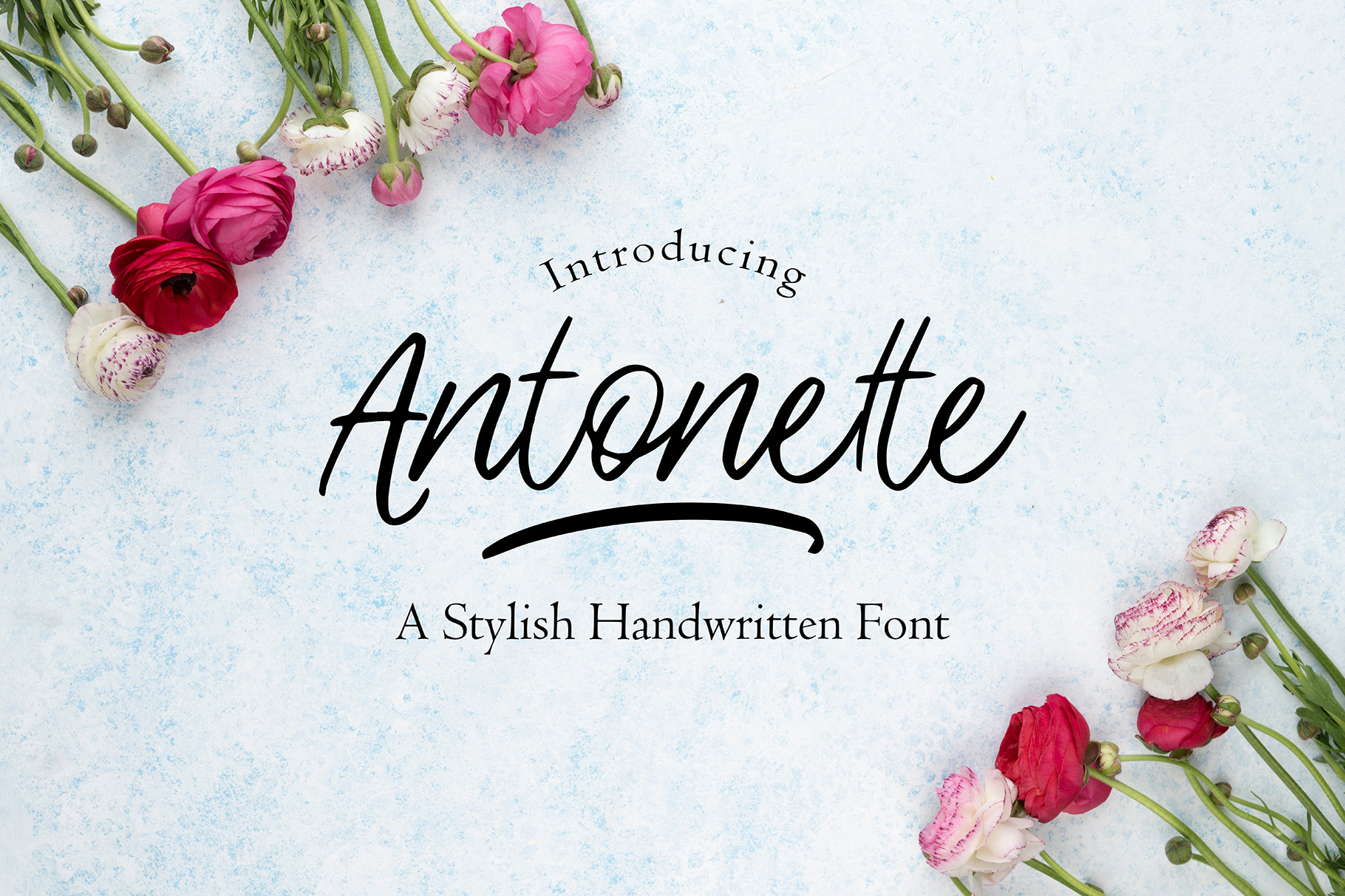
Antonette - Handwritten Font
Say hello to Antonette - A Stylish Handwritten Font
It was made in my personal style and with some fine brush strokes! This font is perfect to create invitation cards, for branding, prints or simply as a text overlay to all kinds of background images. + I added 10 additional swashes especially for branding your type!
This Font includes
- uppercase & lowercase letters
- numeral, punctuation & alternates